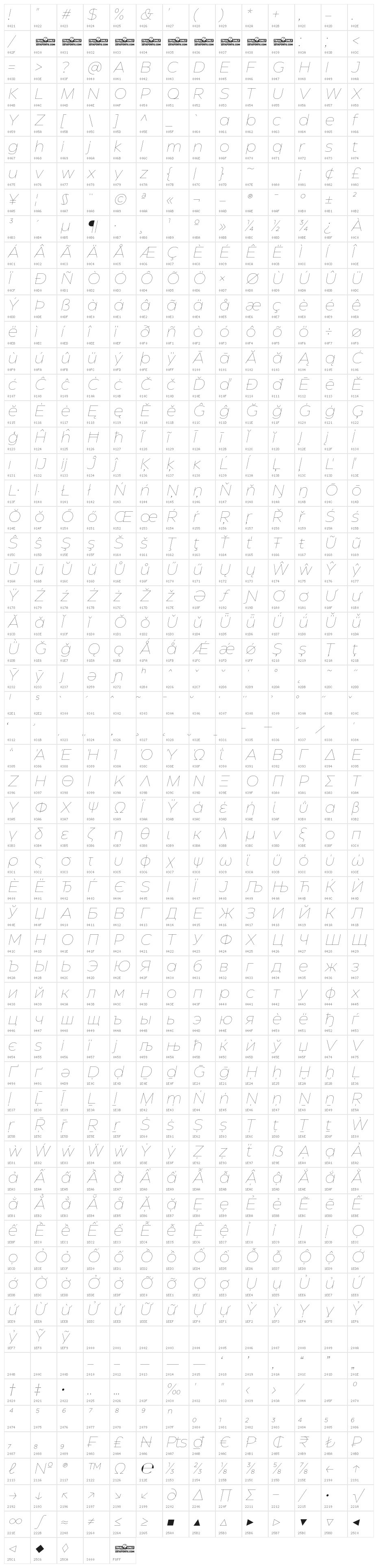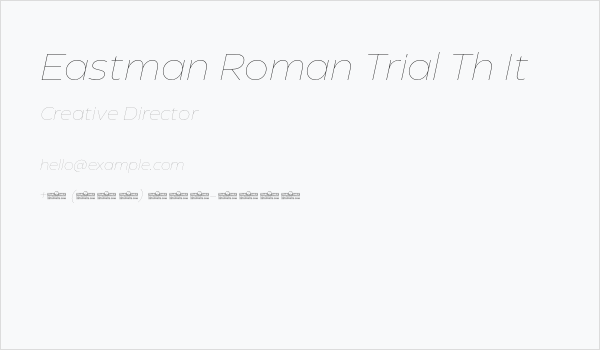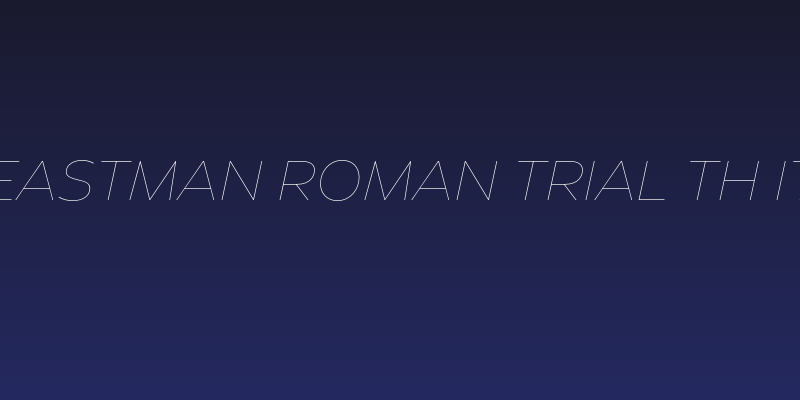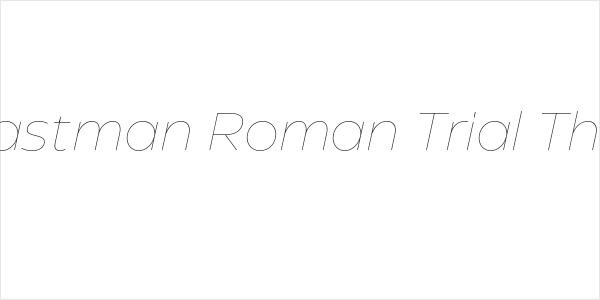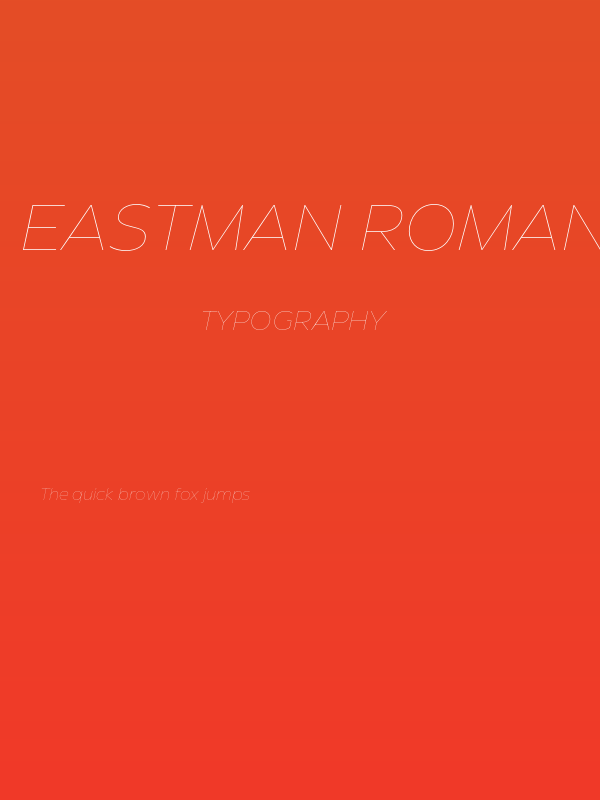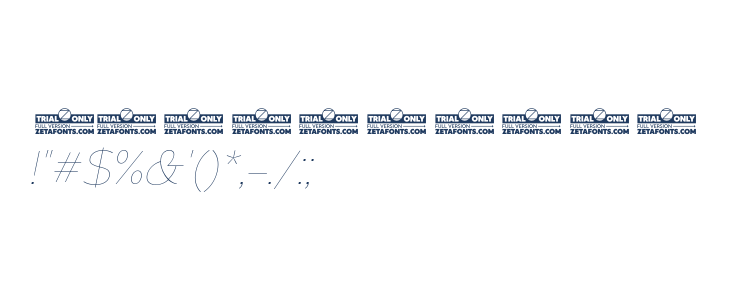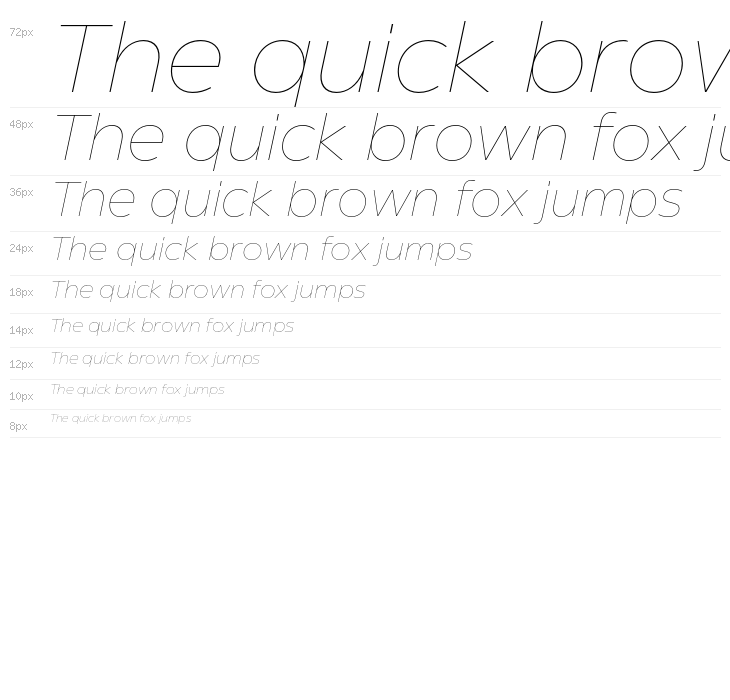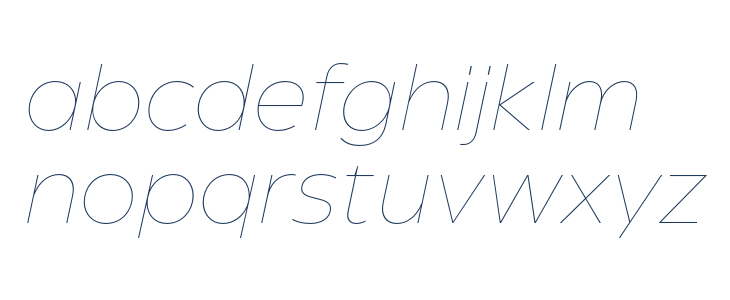
Eastman Roman Trial Th It Font
Eastman Roman Trial Th It Description
This font features a sleek, italicized style with clean, thin lines that give it a modern and elegant appearance. The characters are slightly slanted, enhancing the sense of motion and fluidity. The uppercase and lowercase letters maintain a consistent height and width, contributing to a harmonious look. The numerals and special characters are designed with the same thin strokes, ensuring uniformity across all elements. This font's minimalist design makes it suitable for contemporary applications where clarity and sophistication are desired.